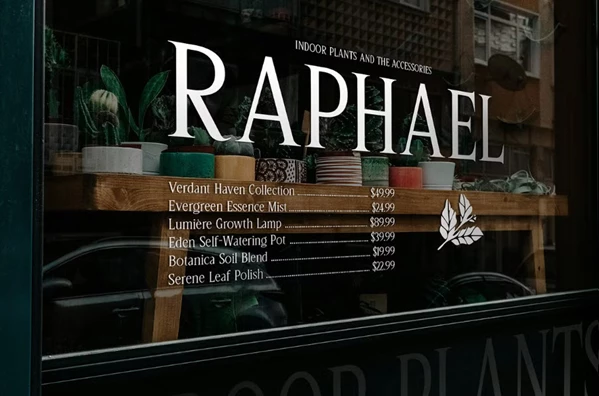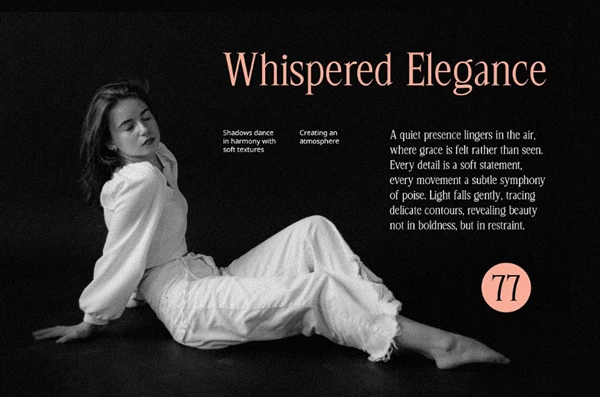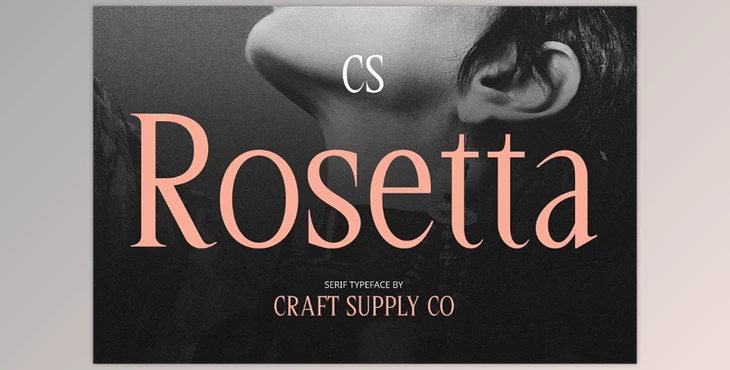
CS Rosetta – Classic Font:
CS Rosetta is a font that neatly combines modern and old serif fonts. The applied serifs are extended which makes the font pleasing and sophisticated. Such attributes make the font ideal for designers who are fond of classical features as well as modern ones.
The style of the font is also of great importance because it has sharp edges and proper proportions. It ensures high legibility and at the same time, written text sounds formal, while being used for sophisticated communication.